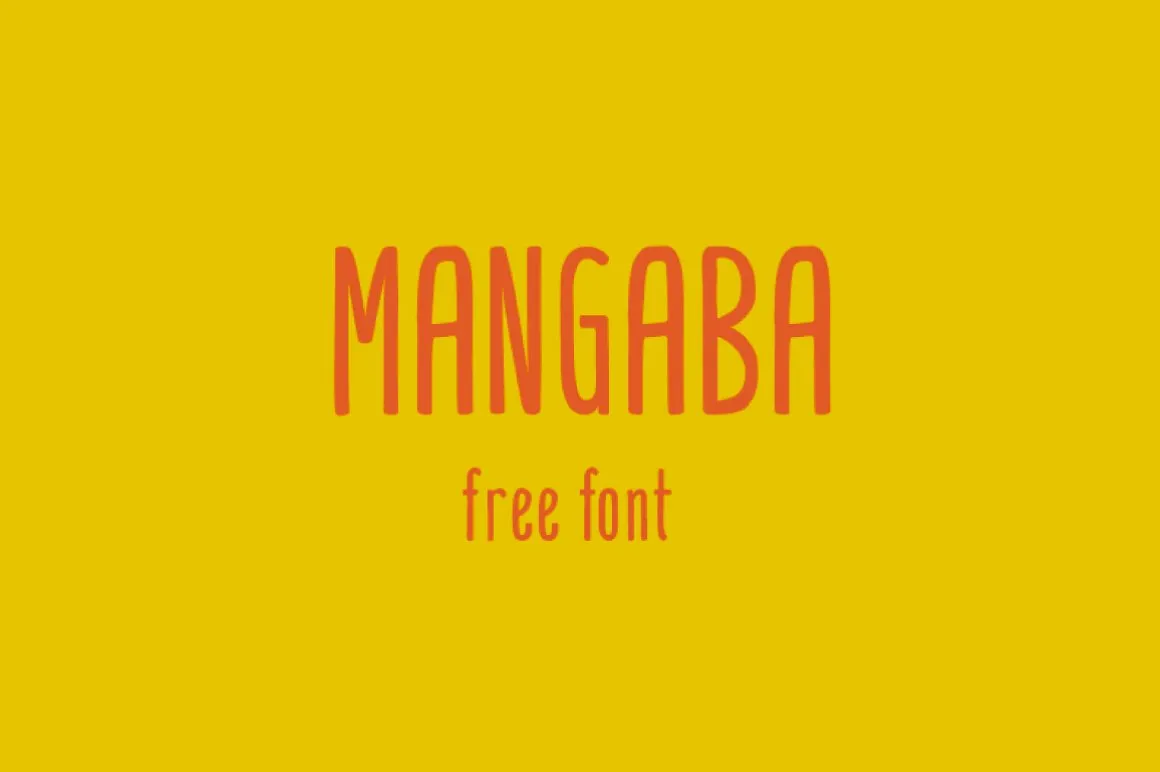
Free mangaba handrawn display font for any designer that is looking to display their design professionally. Eliezer Grawe has created this amazing and beautiful font. Amaze your fellow designers and create stunning designs with this cool font.